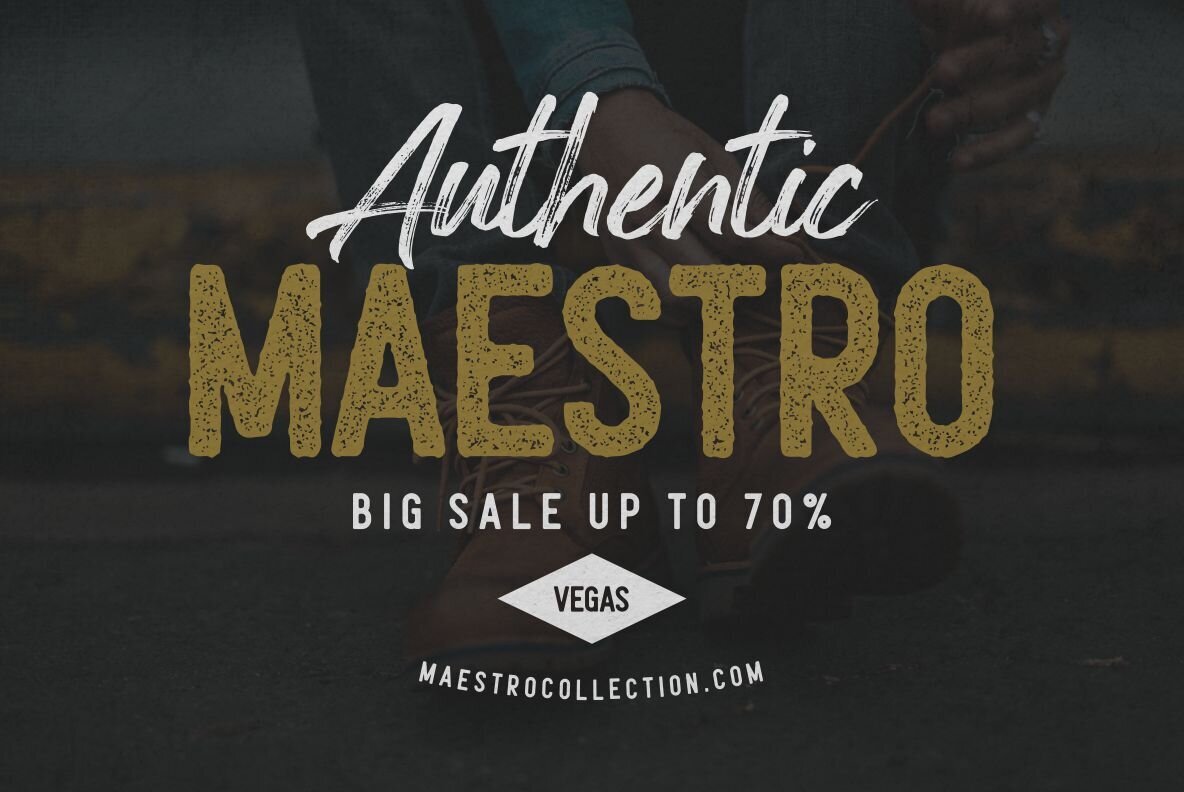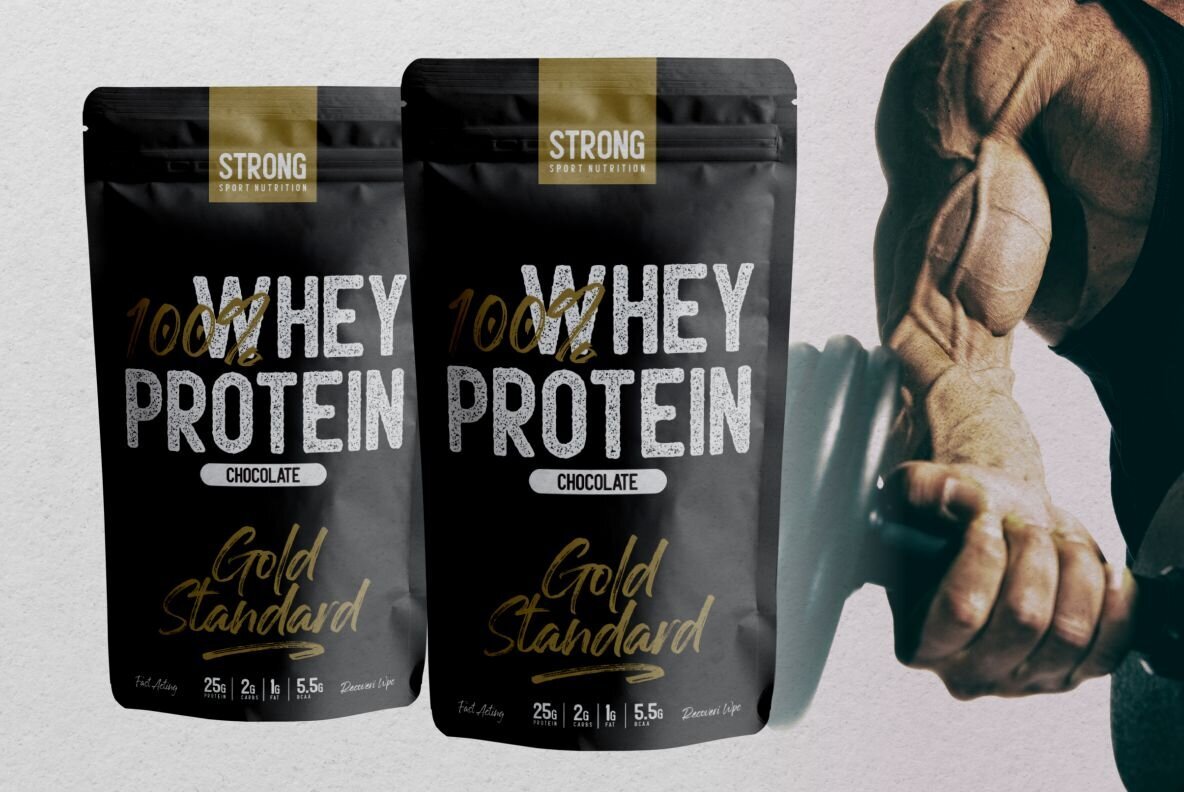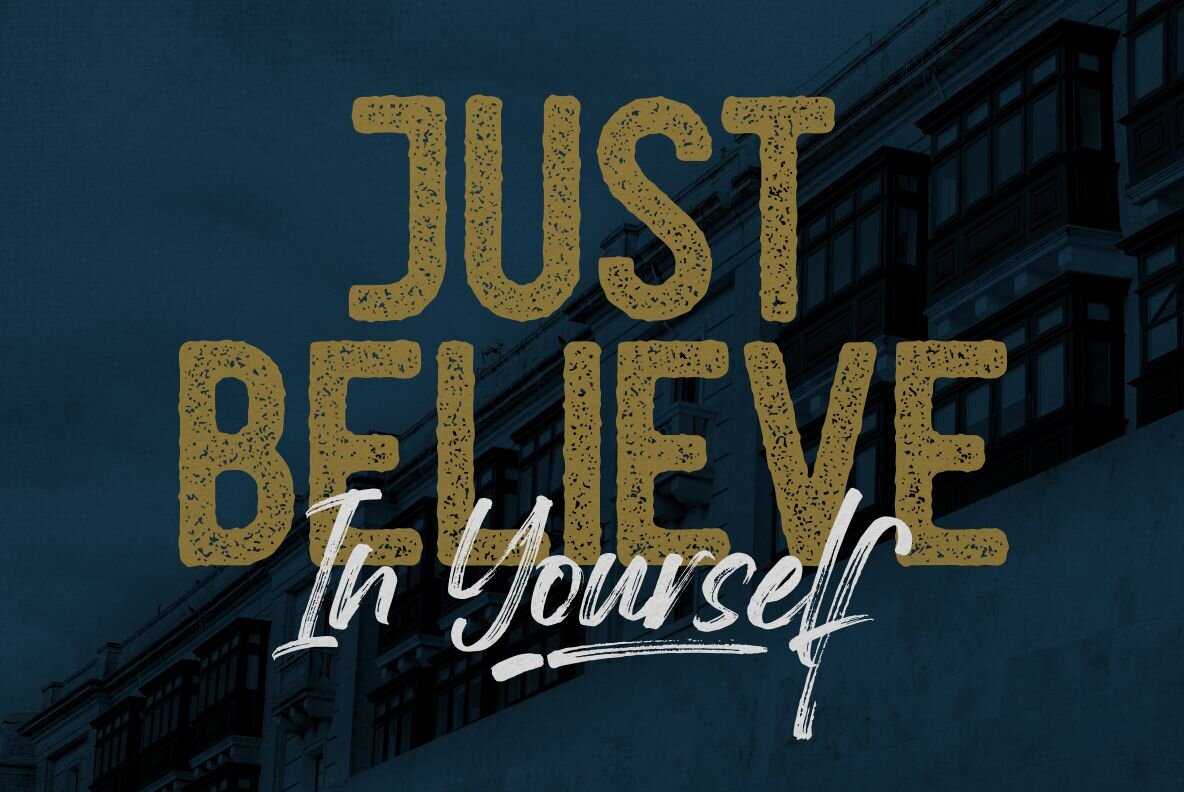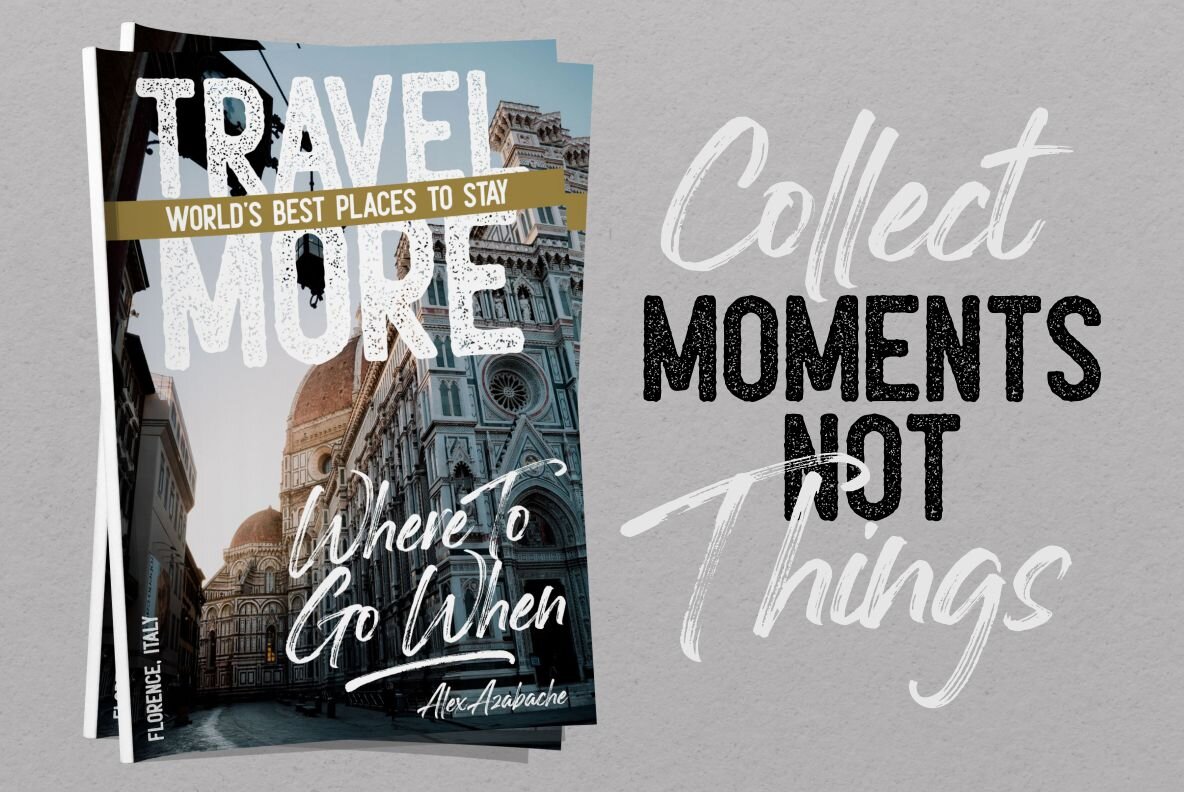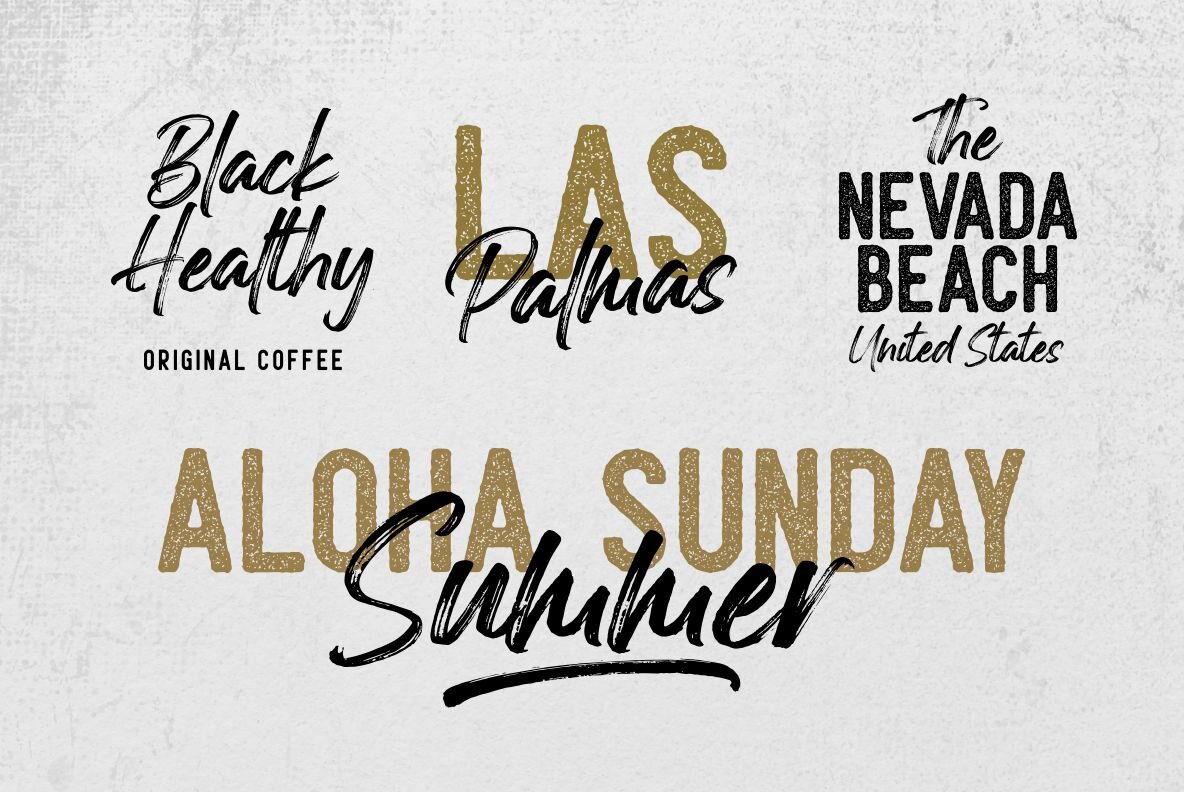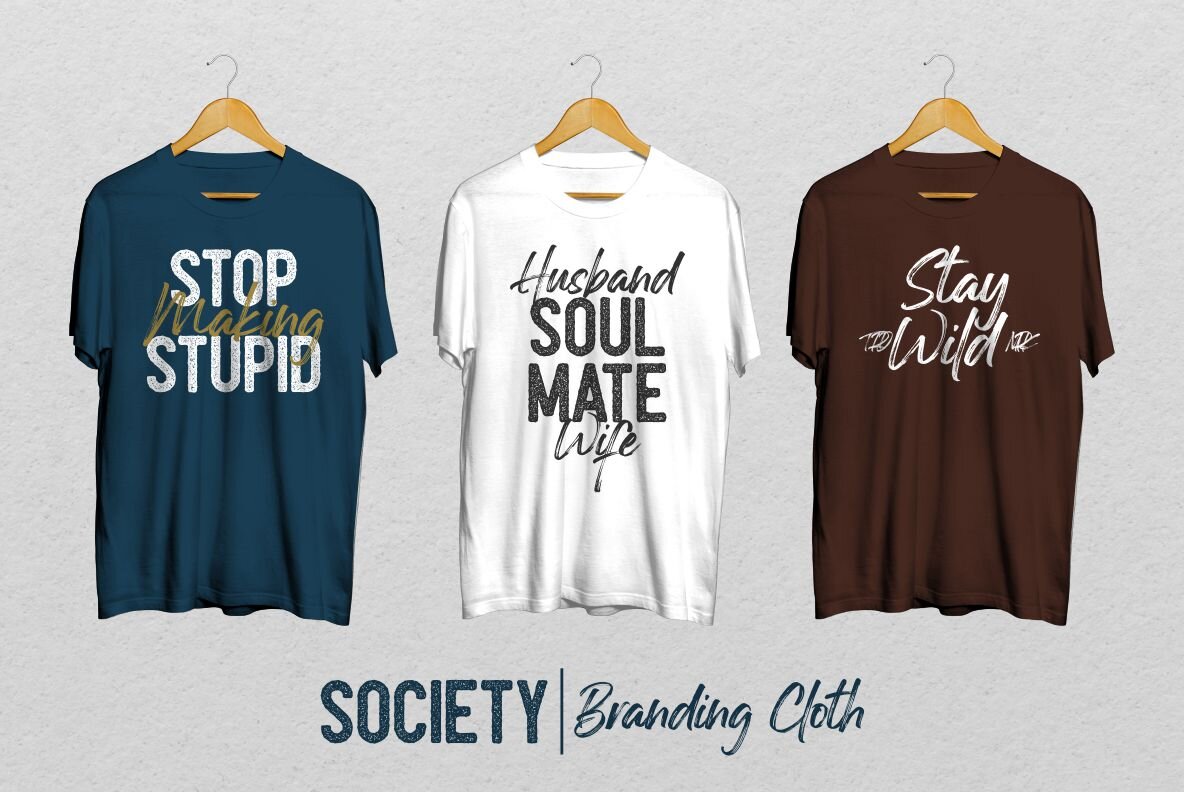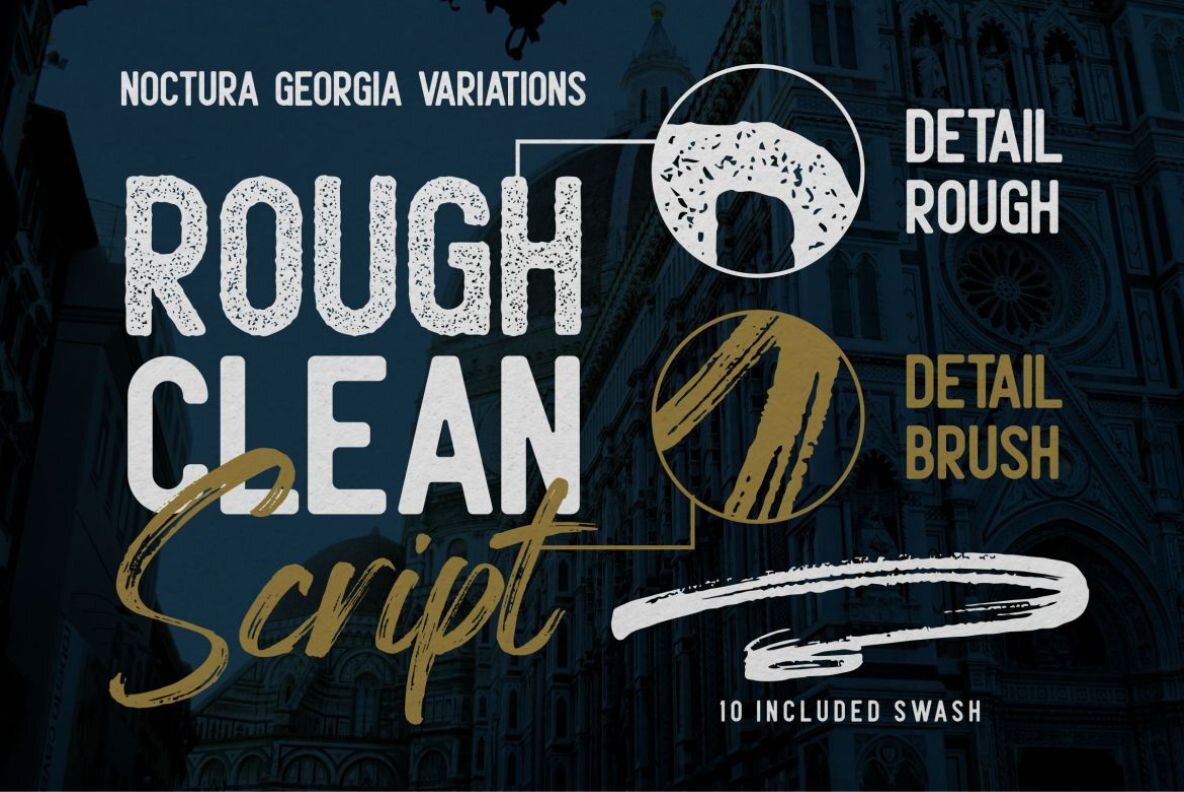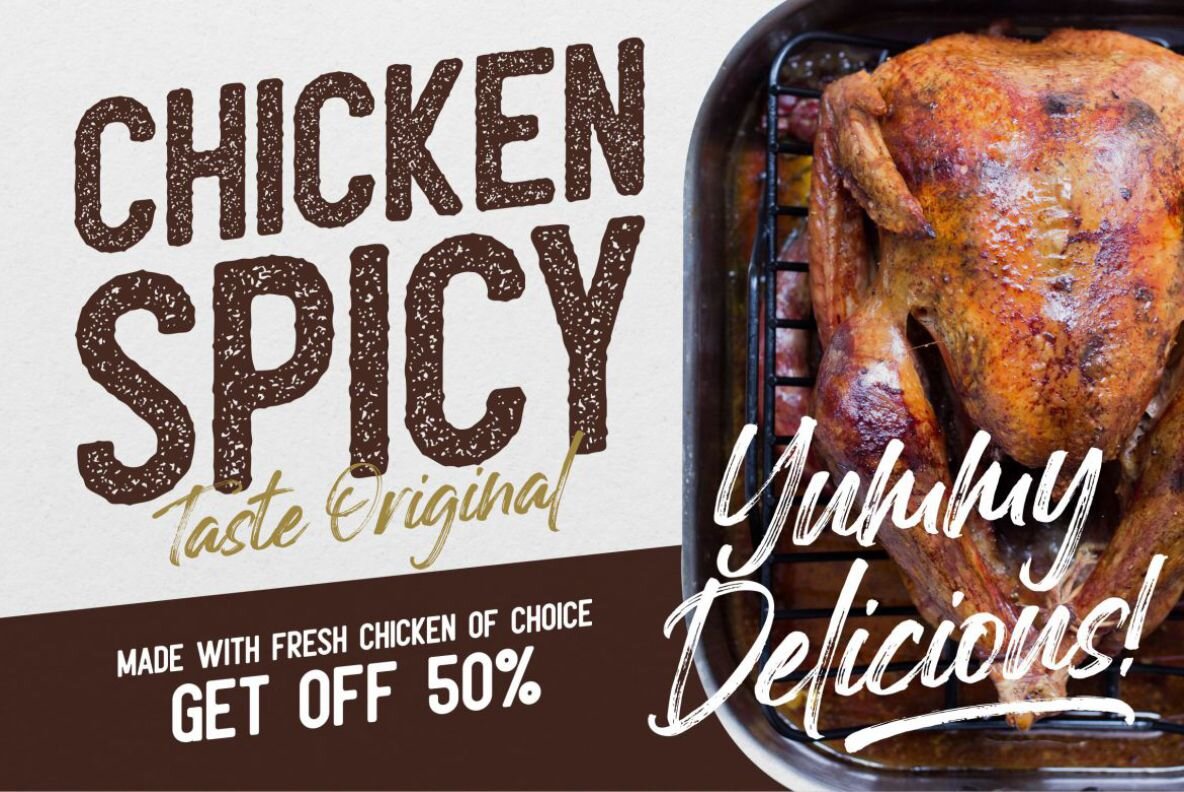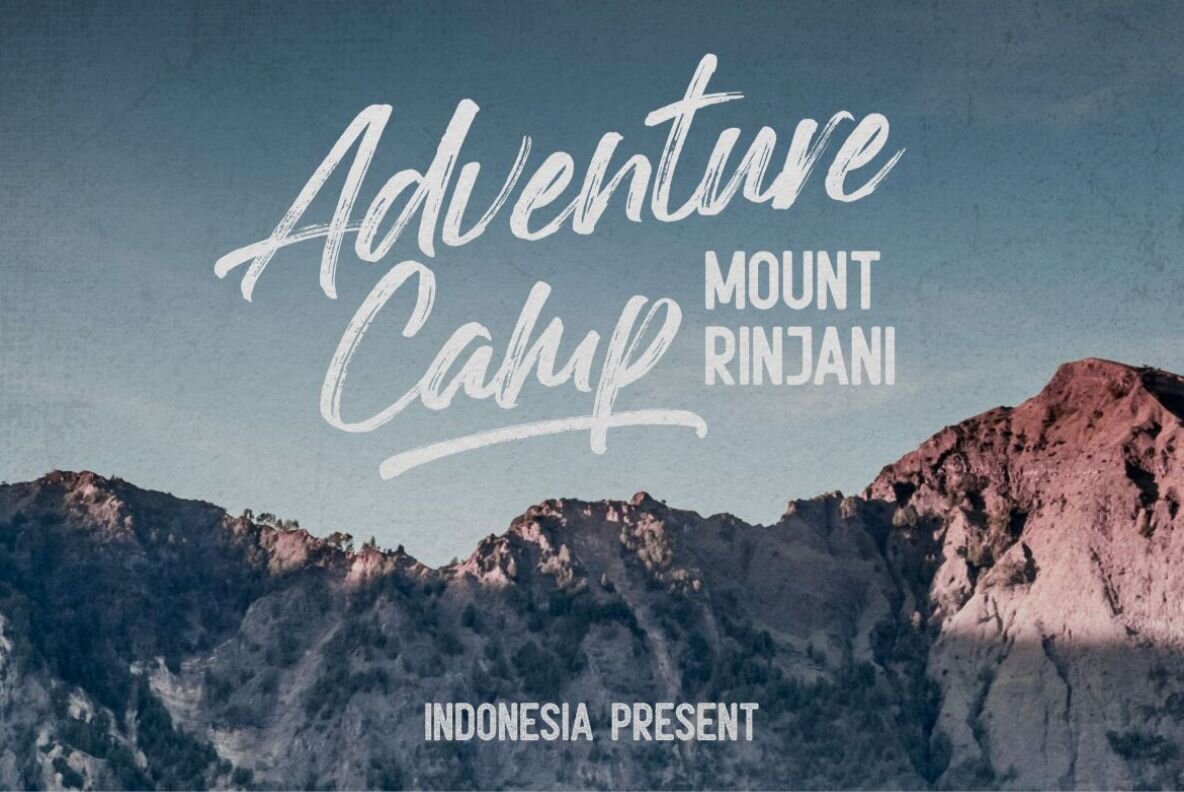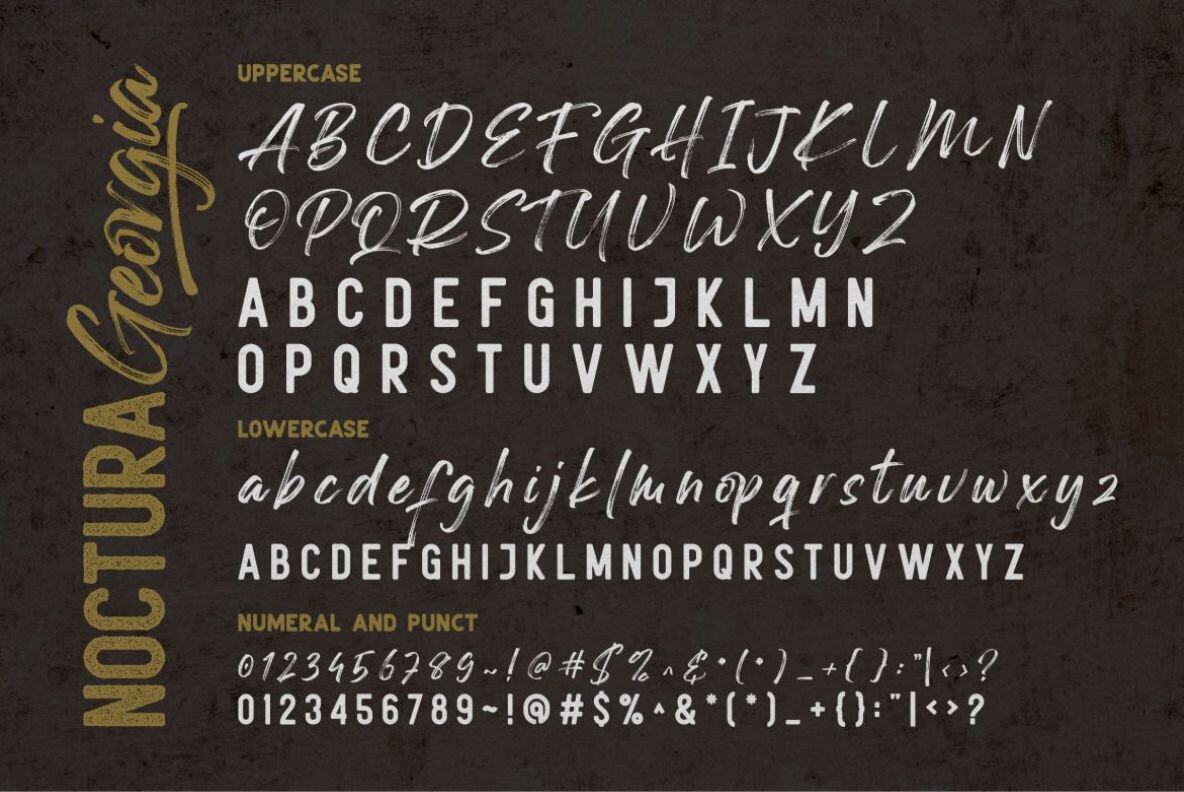
Noctura Georgia Font
Noctura Georgia Brush
Noctura Georgia Sans Clean
Noctura Georgia Sans Rough
Noctura Georgia blends the carefree essence of handwriting with the precision of sans serif, offering a versatile typeface that breathes life into your design projects. Influenced by urban aesthetics, this font effortlessly integrates into logos, branding, photography, and a wide array of creative applications. Features:Noctura Georgia: Urban-Inspired Brush and Sans Typeface